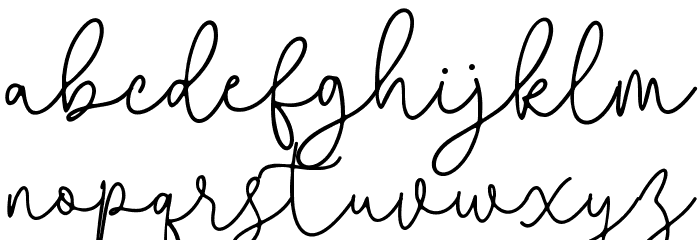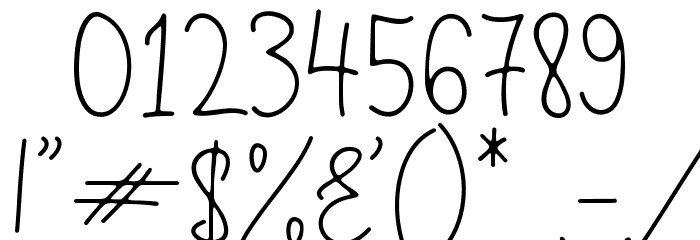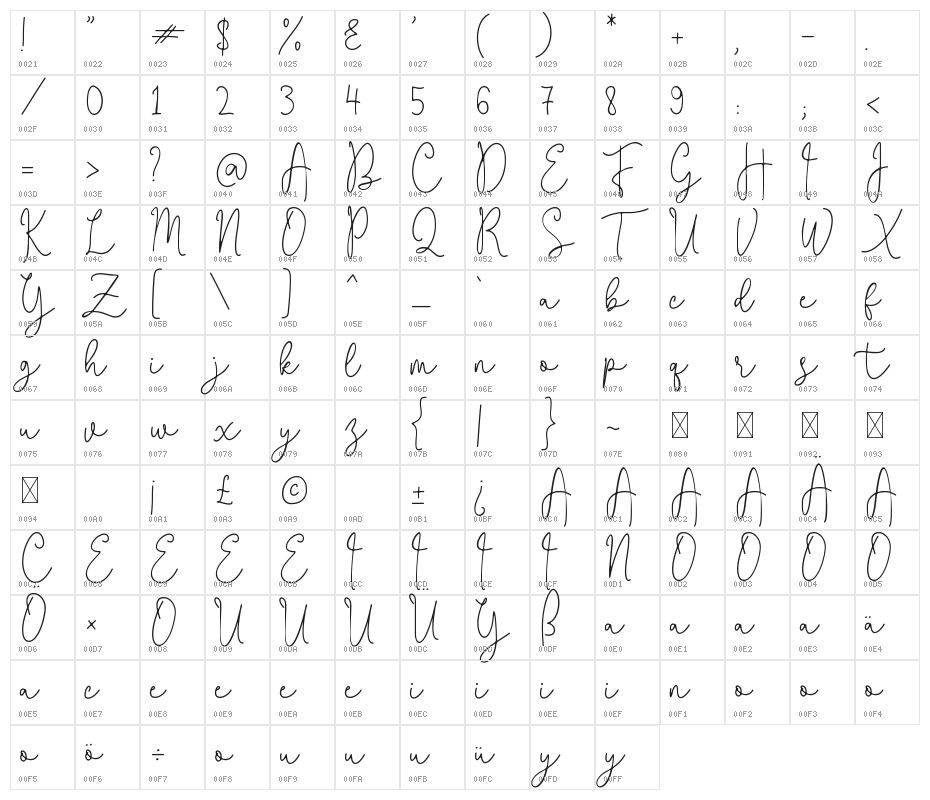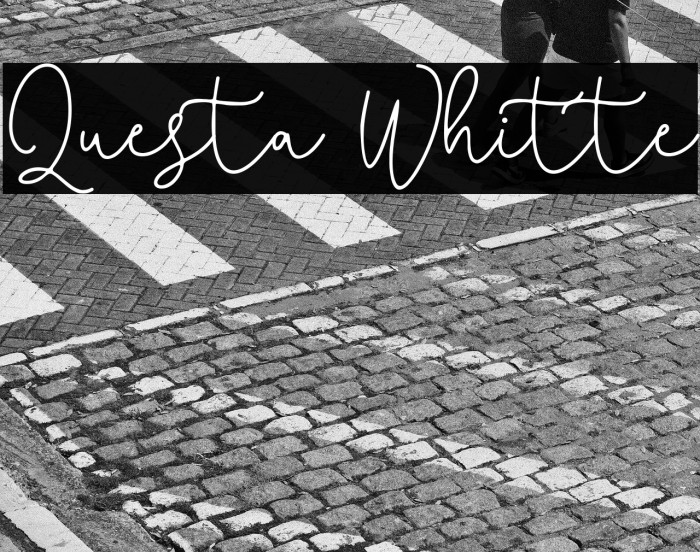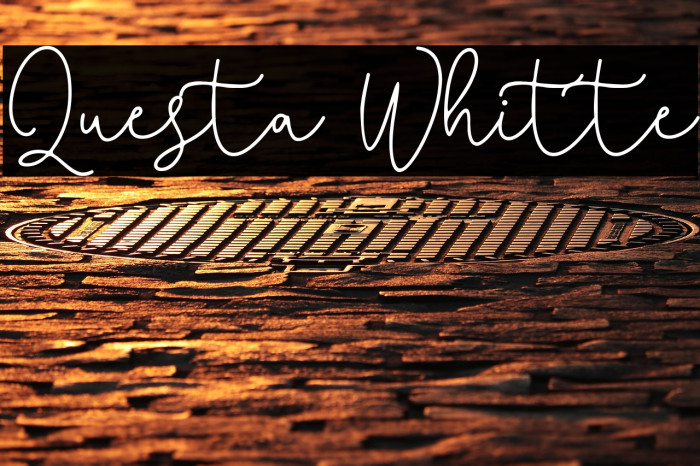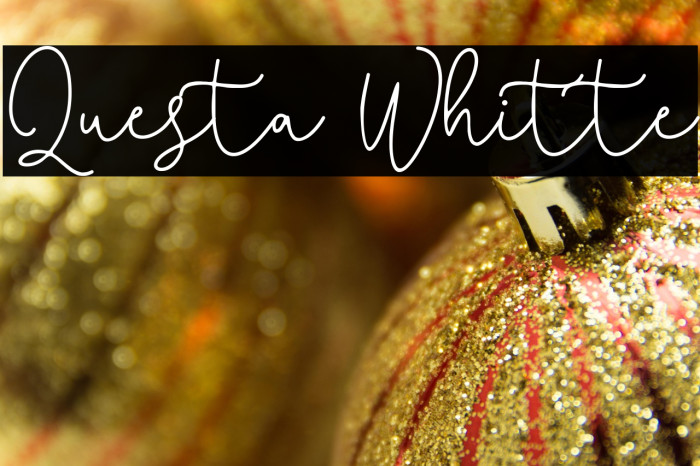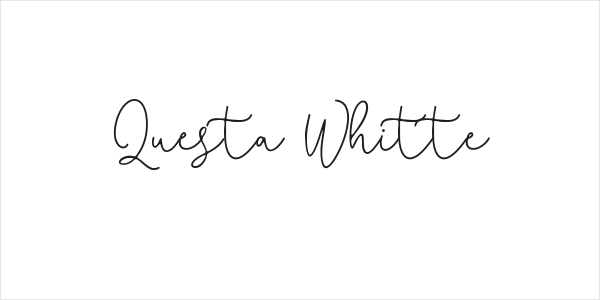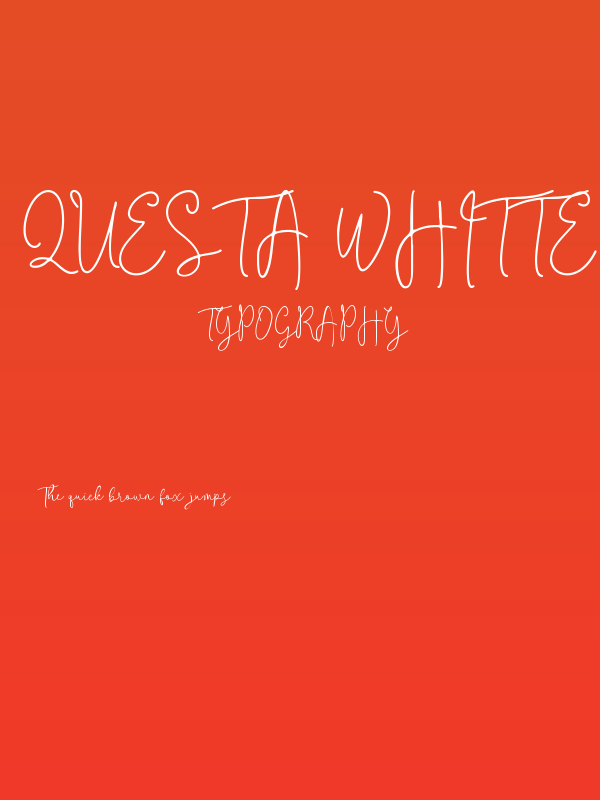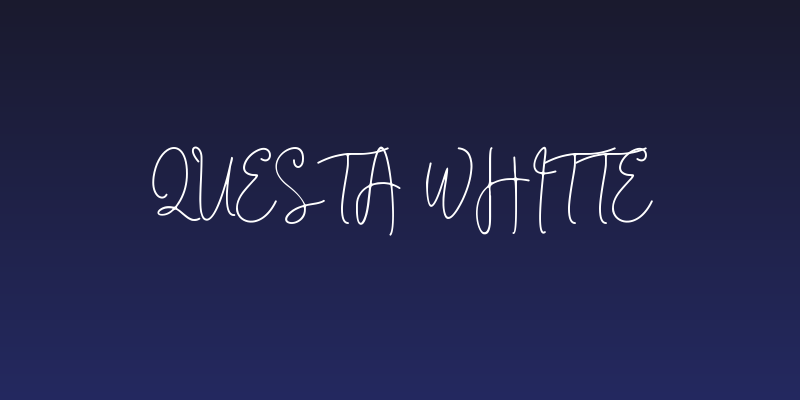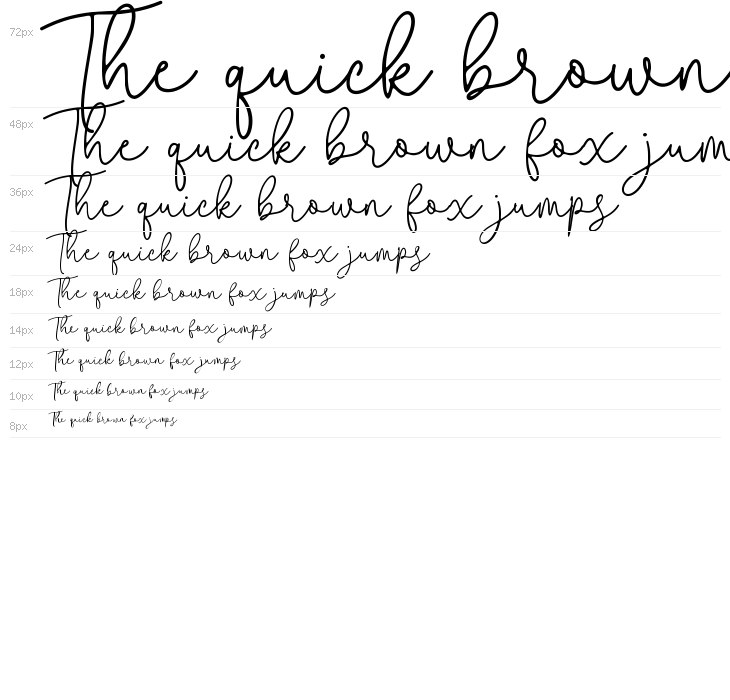
Questa Whitte Font
This font features a playful and elegant handwritten style, characterized by its flowing, cursive letters that maintain a consistent rhythm throughout. The uppercase letters are tall and slender, with a slight slant that adds to the casual yet sophisticated feel. The lowercase letters are more rounded and connected, enhancing the script-like appearance. Numbers and special characters are designed to match the overall aesthetic, with smooth curves and a balanced weight. The font's thin strokes and airy spacing give it a light and open look, making it suitable for projects that require a personal touch.
A playful, elegant handwritten font with flowing cursive letters.
- Proposed Projects: Ideal for wedding invitations, greeting cards, personal branding, and social media graphics.
- Character Spacing: Wide
- Use Case: Logos, Headlines, Invitations